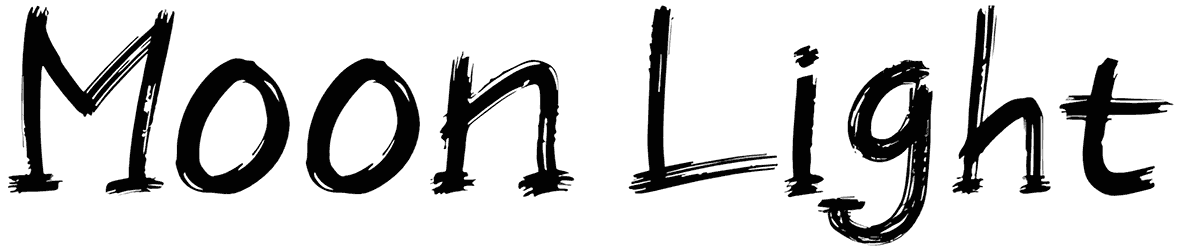
Moon Light Font
Moon Light is a fantastic script font that brings up wonderful memories. This brush font looks unique and may be helpful in various situations, such as posters, flyers, commercial packaging, and prints on T-shirts.